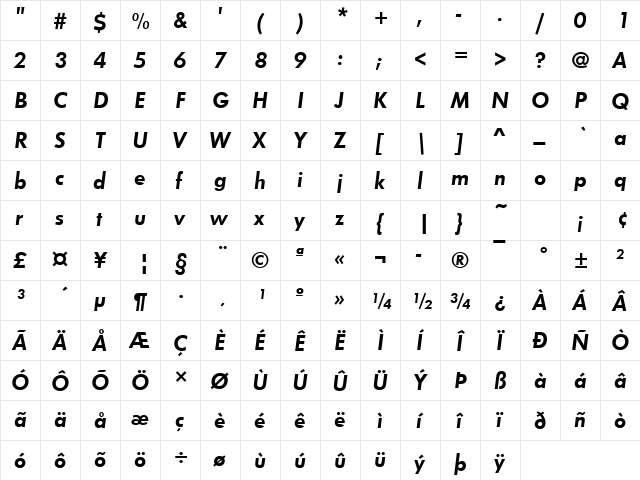
FuturaTDem Oblique
Design Context for FuturaTDem Typeface
FuturaTDem has a distinctly futuristic character, with geometric precision and clean angles that feel at home in technology, gaming, and sci-fi contexts. Its italic angle brings a sense of urgency and motion to the letterforms.